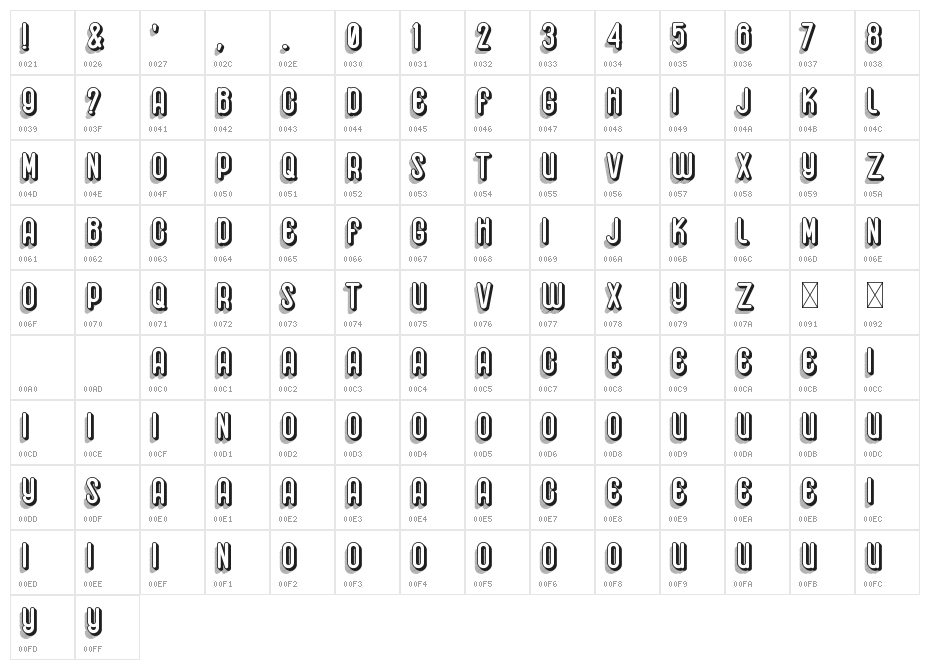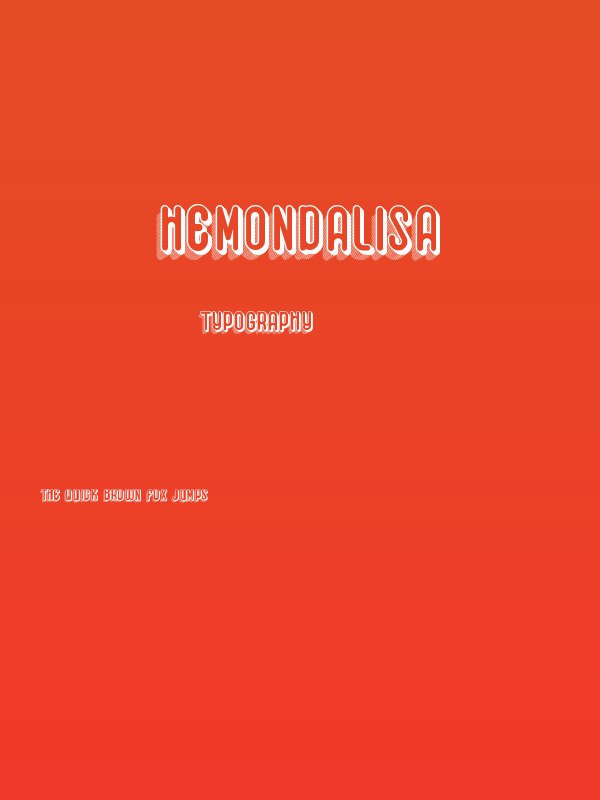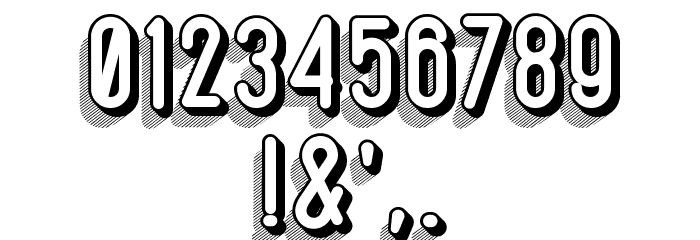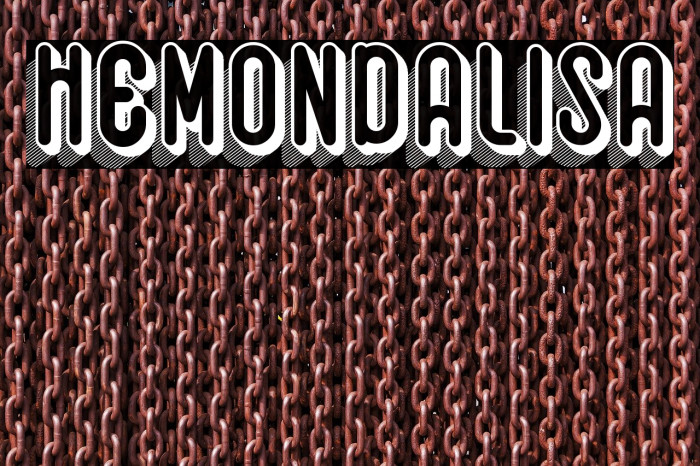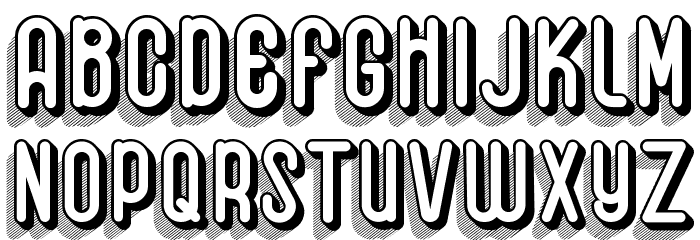
Hemondalisa Font
Hemondalisa Description
This font features a bold, playful design with a three-dimensional shadow effect that adds depth and visual interest. The characters are uppercase and have a rounded, bubble-like appearance, giving them a friendly and approachable feel. The shadow is created with a diagonal line pattern, enhancing the font's dynamic look. The strokes are consistent in width, contributing to a clean and modern aesthetic. This style is particularly eye-catching and suitable for designs that require a fun and engaging typeface.